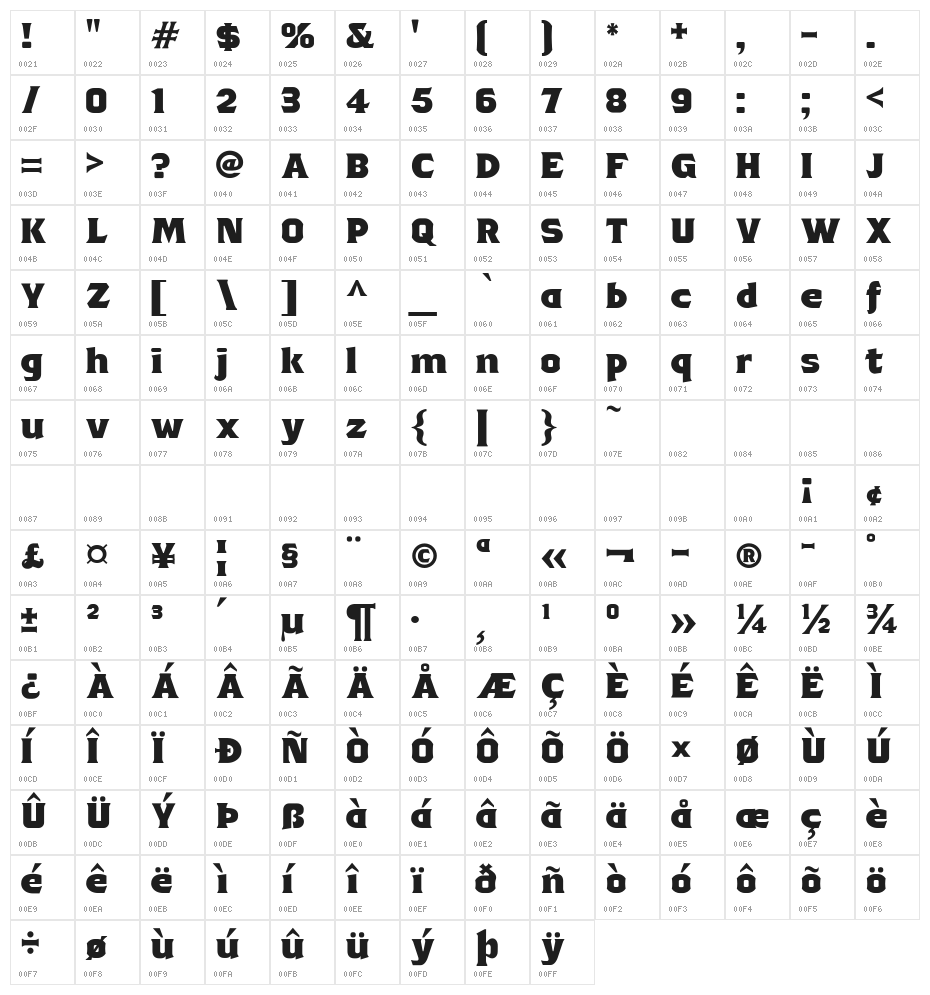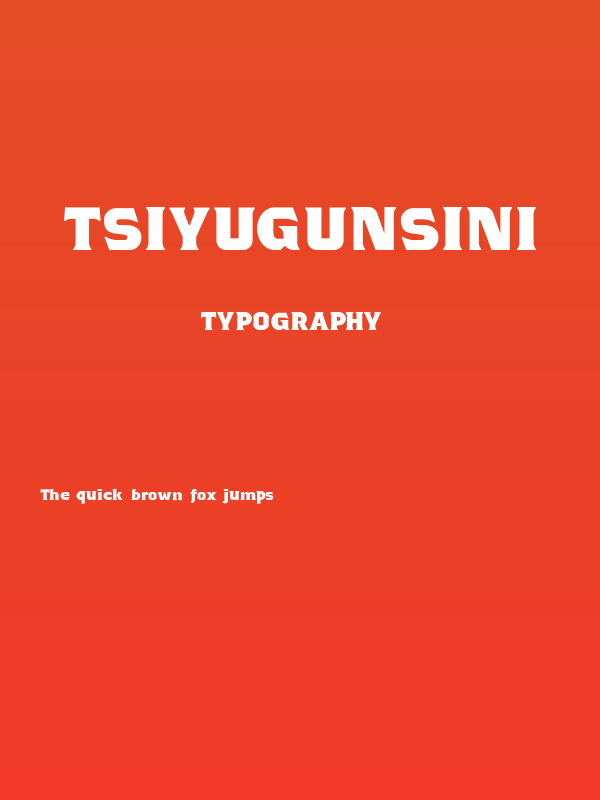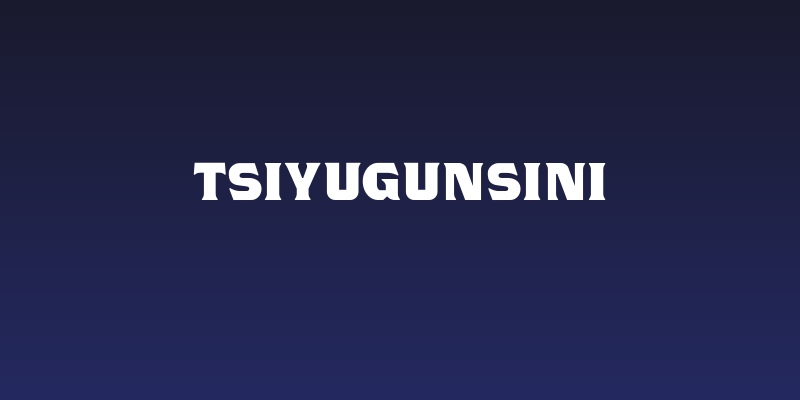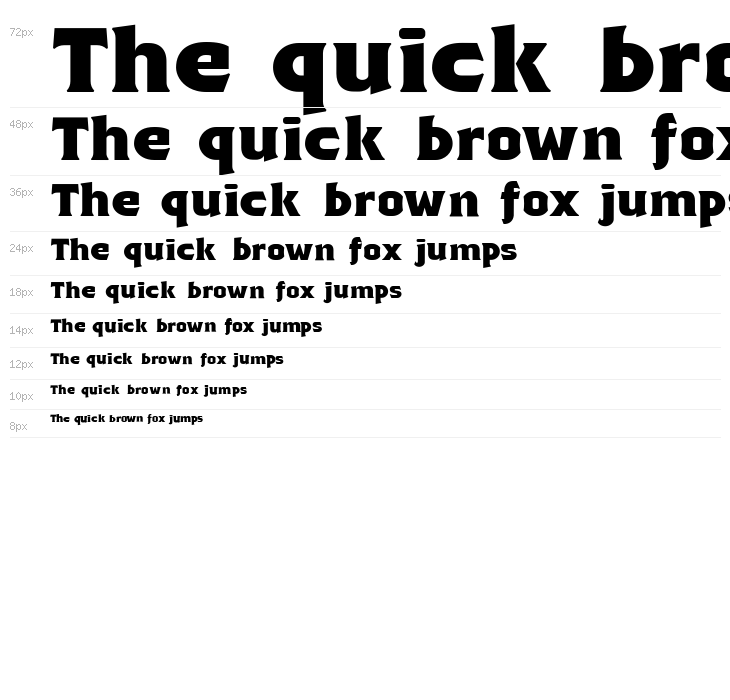
TSIYUGUNSINI Font
TSIYUGUNSINI Description
This font features bold, thick strokes with a strong presence, making it ideal for attention-grabbing designs. The uppercase letters are robust and slightly condensed, while the lowercase letters maintain a consistent weight, offering a harmonious balance. The numerals are equally bold, ensuring they stand out in any composition. Special characters are designed with the same boldness, providing a cohesive look across all glyphs. The overall style is reminiscent of vintage or retro aesthetics, with a modern twist that makes it versatile for various design projects.
| Proposed Projects | Ideal for posters, logos, branding materials, and any project requiring a strong visual impact. |